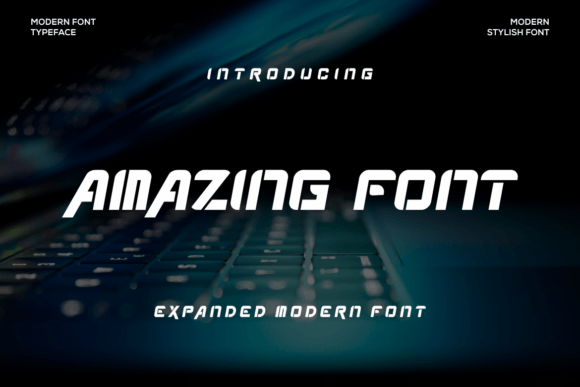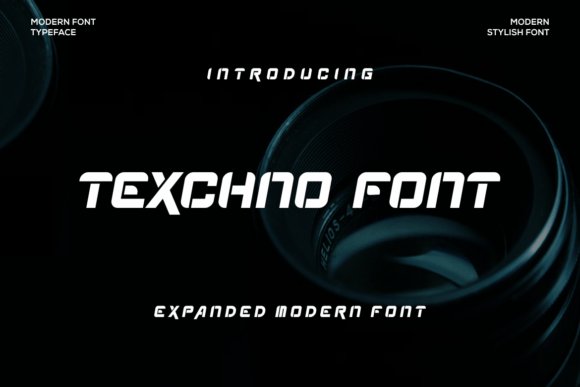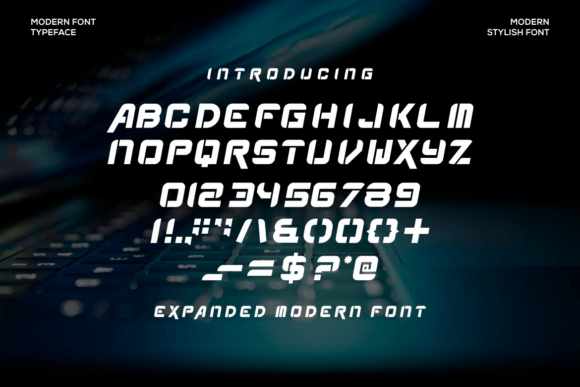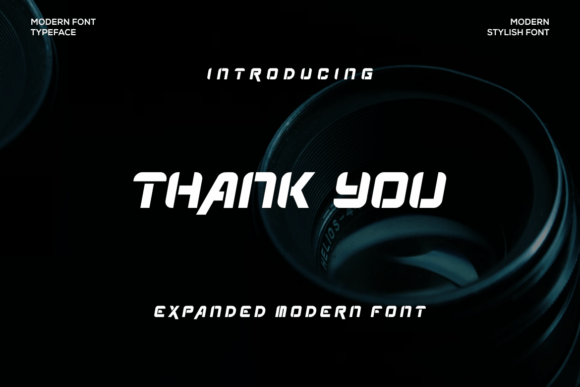
Unleash Your Creativity with Afobex Font
Do you remember that moment when a font choice suddenly transformed your entire design project? It’s like finding the perfect melody to elevate your composition. For designers, typography is a vital element in crafting a memorable brand identity. That’s where our new **Afobex Font** comes in – a modern display font designed to make your branding projects stand out.
Afobex Font is perfect for logos, t-shirt printing, creative products, and more. Its bold and authentic design makes it extraordinary in a variety of contexts. Whether you’re working on a fashion label, a music festival, or a tech startup, Afobex Font is the perfect companion to help you convey your brand’s message with confidence.
Afobex Font Key Features
- Font Family: Afobex is a sans-serif font family designed for use in a variety of settings, including digital and print media.
- Font Sizes: Afobex is available in multiple font sizes, ranging from 8-point to 72-point, making it suitable for a wide range of applications.
- Resolution: Optimized for use at high resolutions, Afobex is perfect for use in high-resolution printing and digital displays.
- Unique Characteristics: Afobex features a clean and modern design aesthetic, with a focus on legibility and readability across a wide range of contexts.
- Language Support: Afobex supports a wide range of languages, including Latin, Cyrillic, and Greek, making it a versatile choice for global applications.
Afobex Font Review
I’ve had the chance to play around with the Afobex Font, and here’s my honest take.
Unique Style
Afobex Font offers a distinctive and modern aesthetic that can add a touch of elegance to various designs.
Good Legibility
The font is easy to read, even at smaller sizes, making it suitable for a wide range of applications.
Limited Font Family
Afobex Font is a single font family, which may not offer the same level of versatility as more comprehensive font suites.
Not Ideal for Body Text
While Afobex Font is great for headlines and titles, it may not be the best choice for large blocks of body text due to its modern and decorative nature.
Afobex Font is a solid choice for designers looking to add a touch of sophistication to their projects. While it may not be suitable for every application, its unique style and good legibility make it a great option for specific use cases.
Afobex Font is a versatile font that can be used for a variety of purposes, including:
- Business presentations and reports
- Editorial and publishing projects
- Marketing materials and advertising
To get the most out of Afobex Font, experiment with different font sizes, colors, and styles to create a unique and visually appealing design.